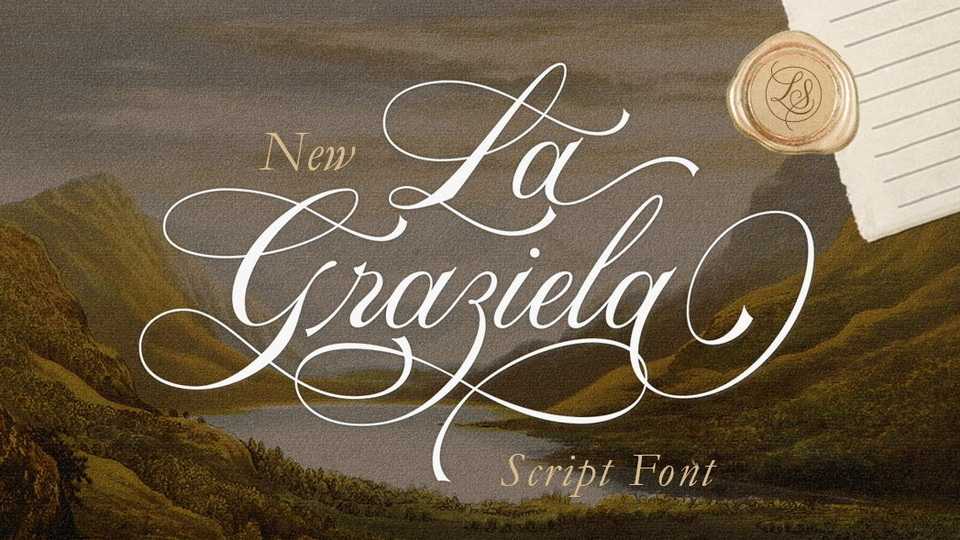
Download La Graziela font, an enchanting handwritten typeface with an elegant flow. La Graziela font has a wide range of applications from greeting cards to headlines and is guaranteed to add a romantic feel to your next project.